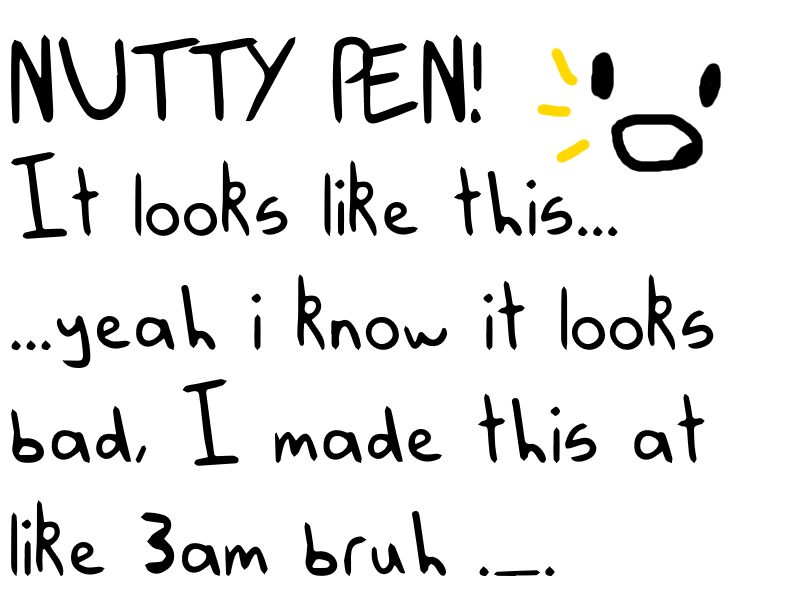
Nutty Pen
Nutty Pen is the perfect font for anyone looking for a casual, handwritten feel with just the right amount of width. Created by Nutti, this semi-condensed typeface is both unique and versatile, making it suitable for a range of projects. Use it to add a personal touch to your blog or website, create charming invitations or greeting cards, or even design playful packaging for your products. Whether you're looking to inject some fun into your branding or simply want to add some personality to your next project, Nutty Pen is the ideal choice for any creative endeavor.
A font that is made from my own handwriting. The infinity symbol also has a special surprise.